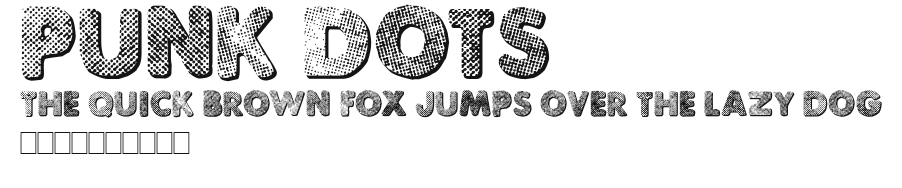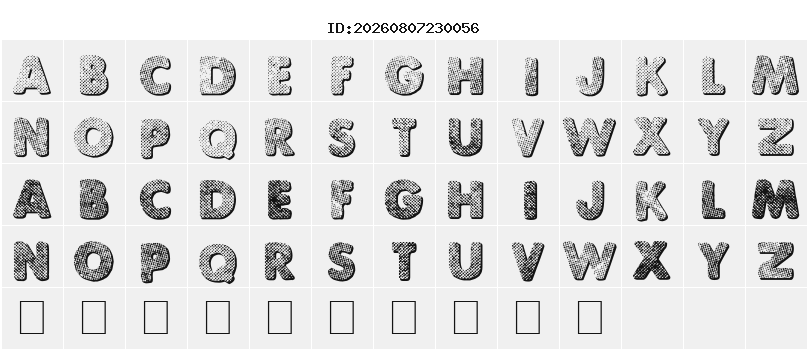
• Font Name: Punk Dots
• Full Font Name: Punk Dots
• Designer: Imagex
About Punk Dots.ttf
Punk Dots.ttf is a modern, elegant sans-serif font designed for ultimate readability and visual harmony. Perfect for branding, headlines, web design, and print materials.